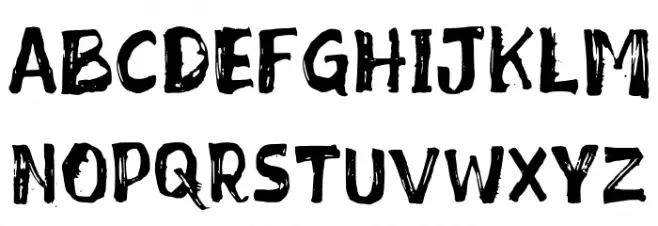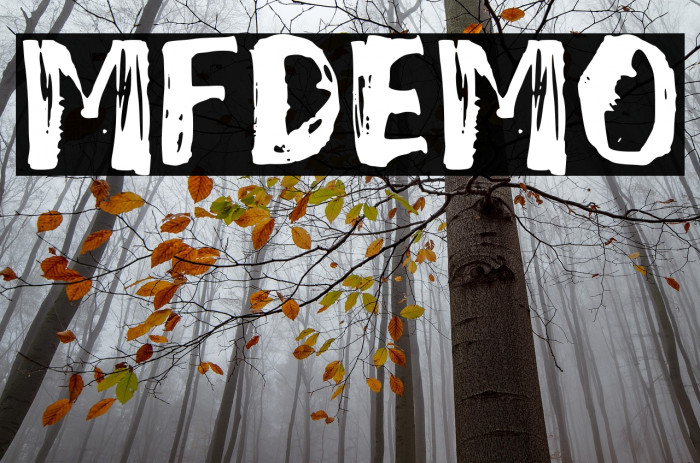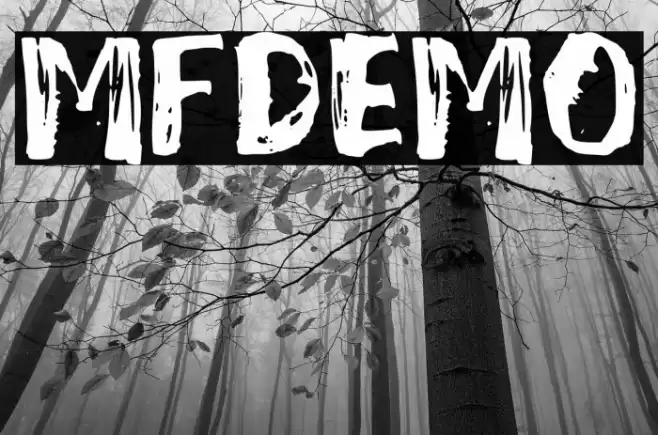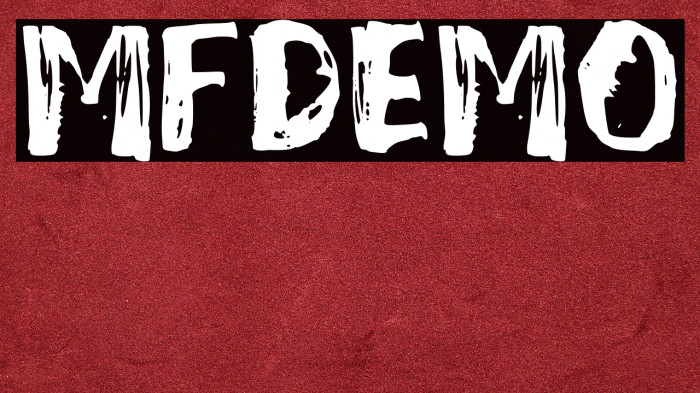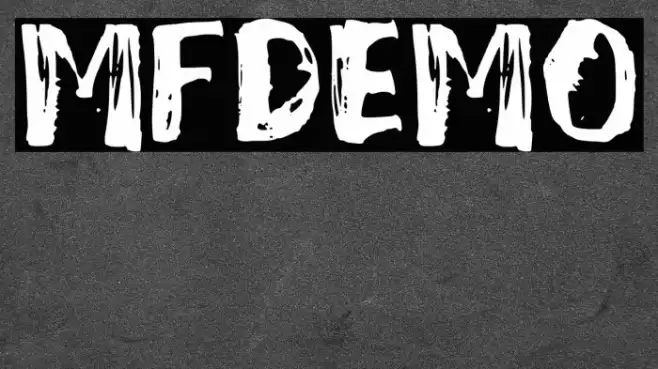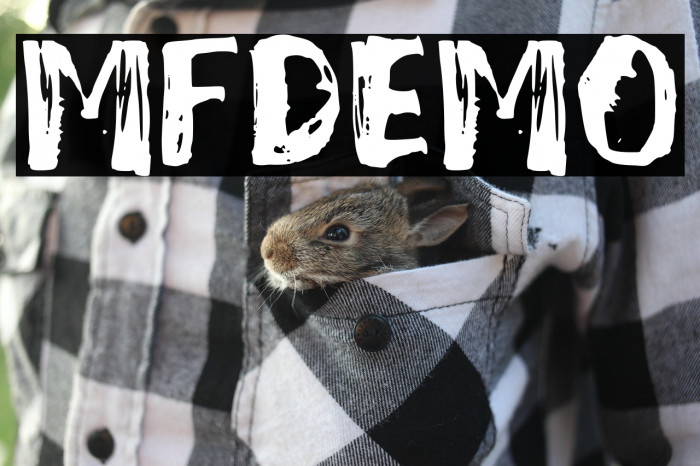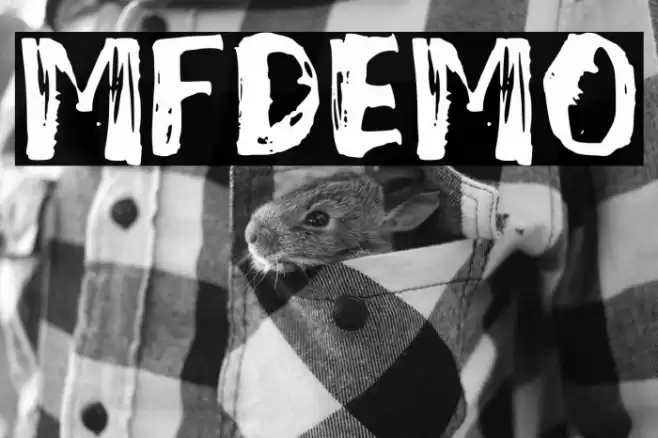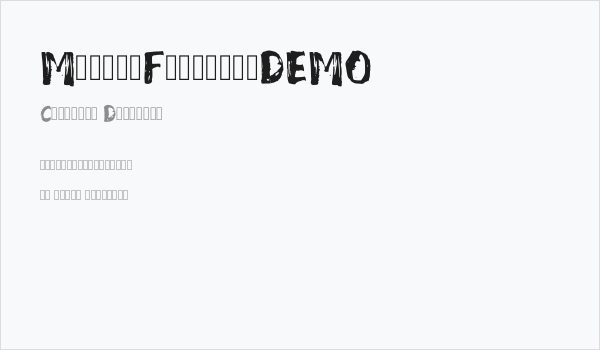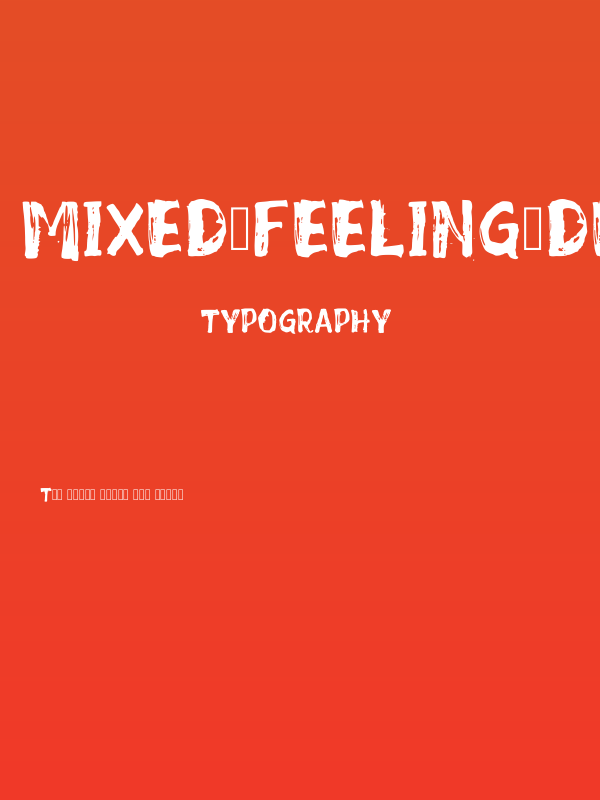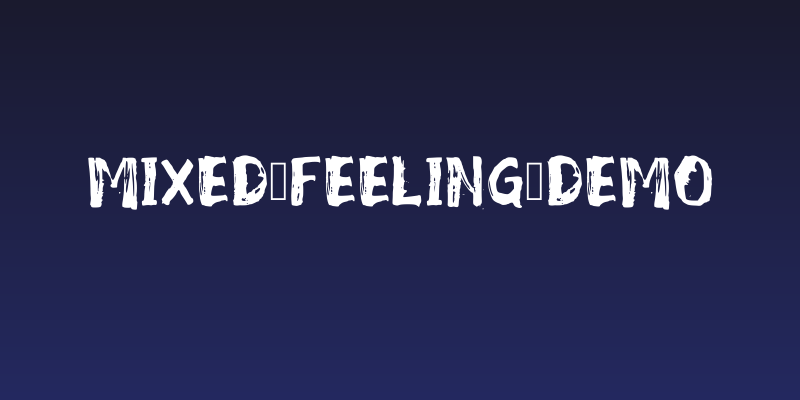
Mixed_Feeling_DEMO Font
This font features a bold and expressive style with a hand-painted appearance. The characters are irregular and dynamic, with rough edges and a textured look that suggests a sense of movement and energy. Each letter has a unique form, contributing to an overall artistic and rebellious vibe. The strokes are thick and uneven, creating a high contrast between the filled and unfilled spaces. This font is perfect for projects that require a bold statement or an edgy, creative touch.
| Proposed Projects | Ideal for posters, album covers, graffiti art, and branding that requires a bold, artistic flair. |